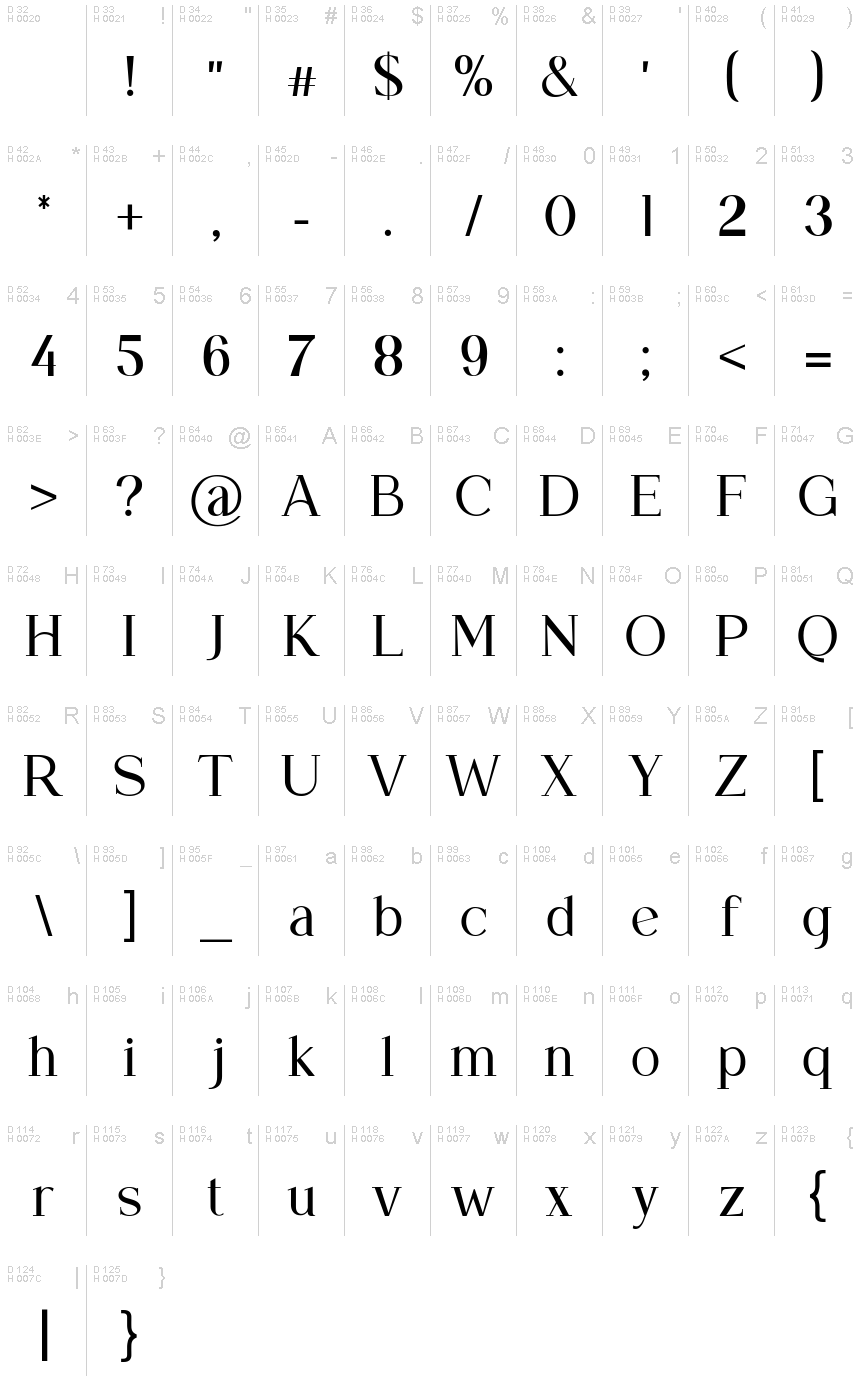
Mangolaine
Mangolaine, crafted by UI Creative, is a serif font that exudes elegance and sophistication. Its refined strokes and balanced proportions create a harmonious blend of classic and contemporary styles, making it a visually captivating choice for various design projects.
This font's clean lines and graceful serifs contribute to its timeless appeal, while the subtle contrasts in weight add an element of dynamism without overwhelming the viewer. Mangolaine's versatility shines through in its ability to adapt to both digital and print mediums effortlessly.
Ideal for branding, editorial designs, invitations, or any project seeking a touch of class and refinement; Mangolaine seamlessly elevates text with its poised demeanor. Whether used in headlines or body text, this font ensures readability while imparting an aura of distinction to your designs.